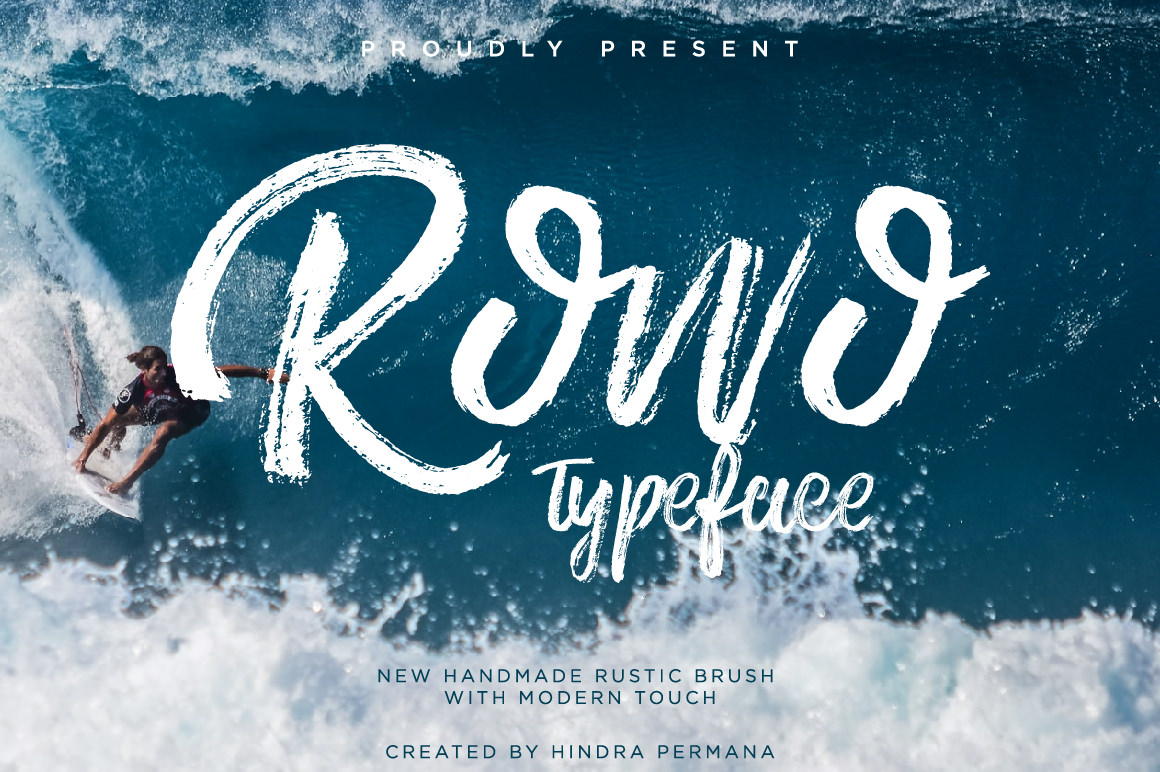
Time for a new freebie! This time we can delight our designs with this great handwritten font called “Rowo“. It was created by NDROADV, and distributed as an exclusive freebie via PixelSurplus.
Rowo is a great free typeface that comes with a natural brush stroke effect. It combines the rustic style of a hand brush with a modern style handwriting. It’s perfect for mixing it with fonts from other styles, being able to create attractive and high quality designs. This free font comes with uppercase and lowercase letters, numbers, punctuations and a vector file that contains a bunch of great swashes that will bring personality to your projects.